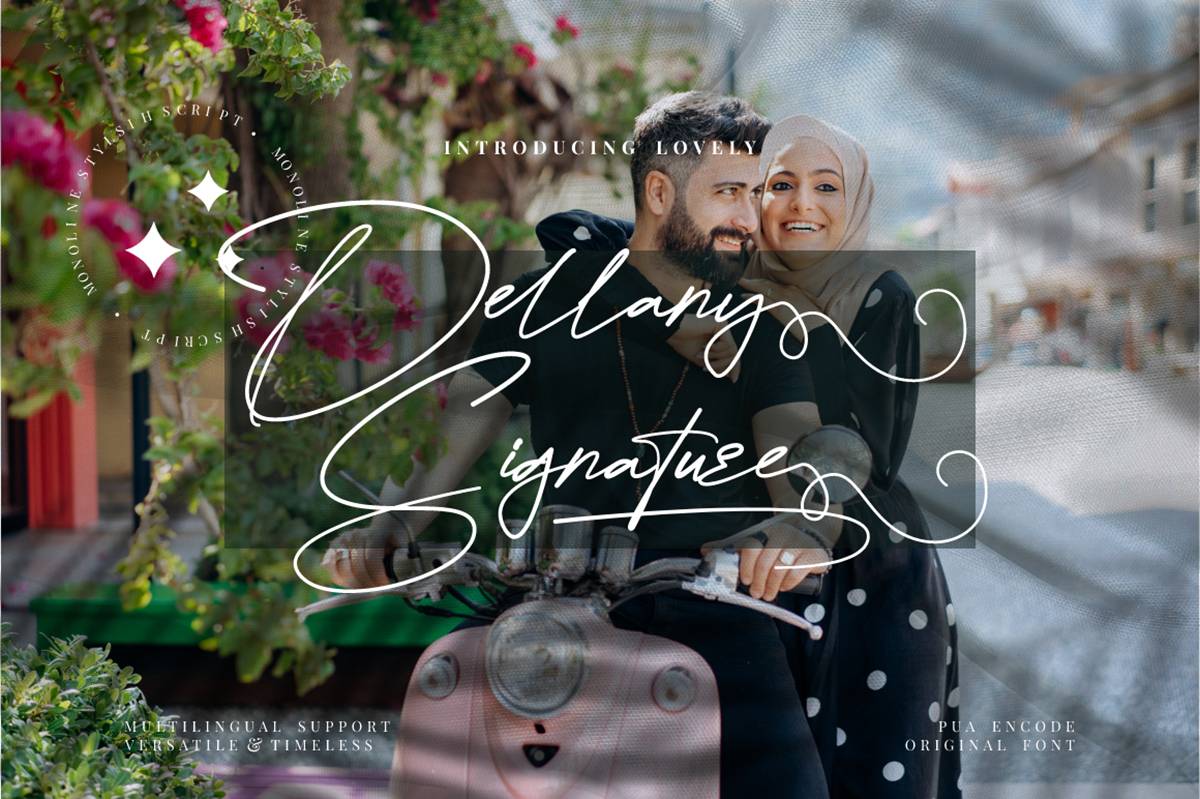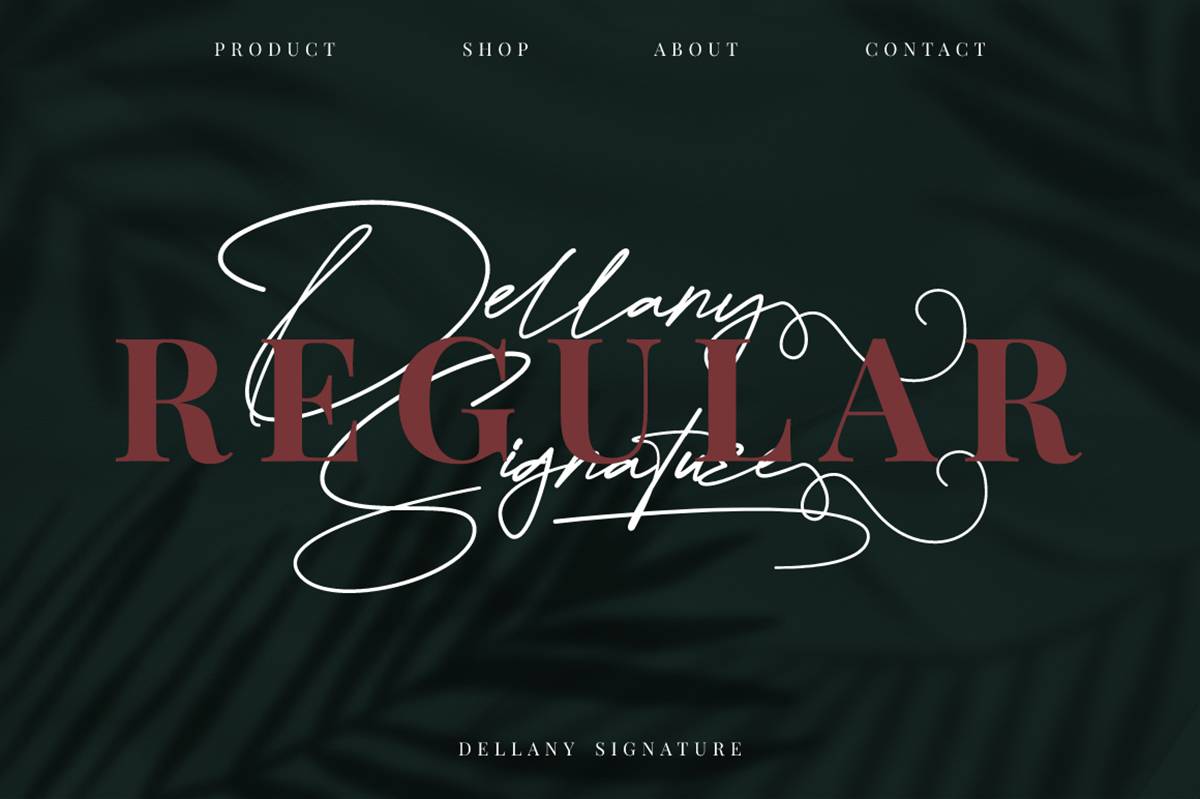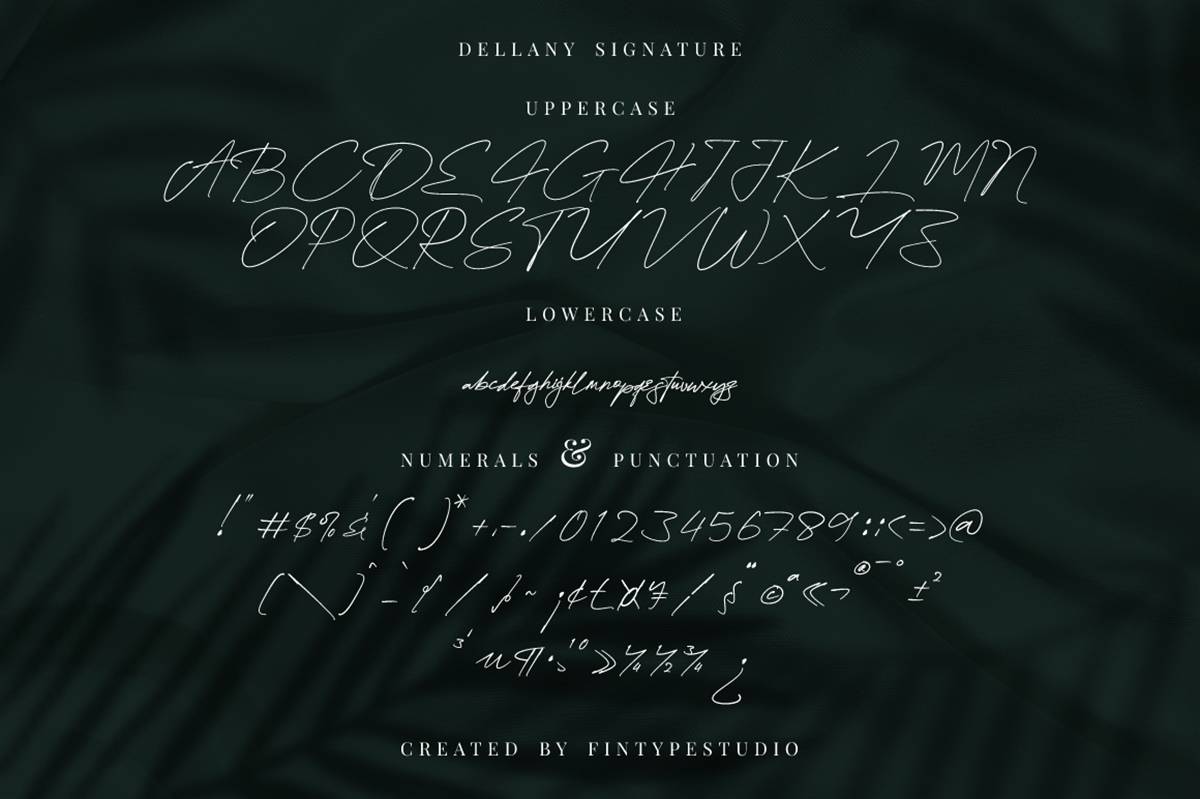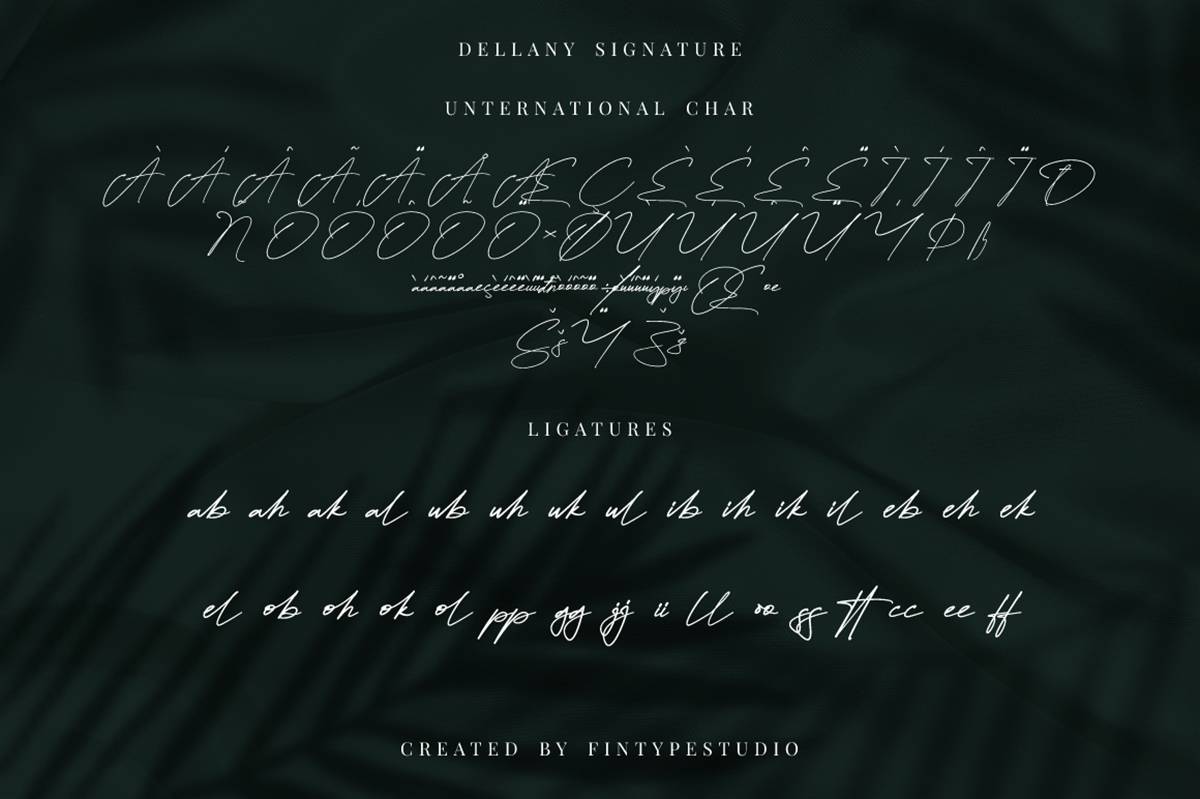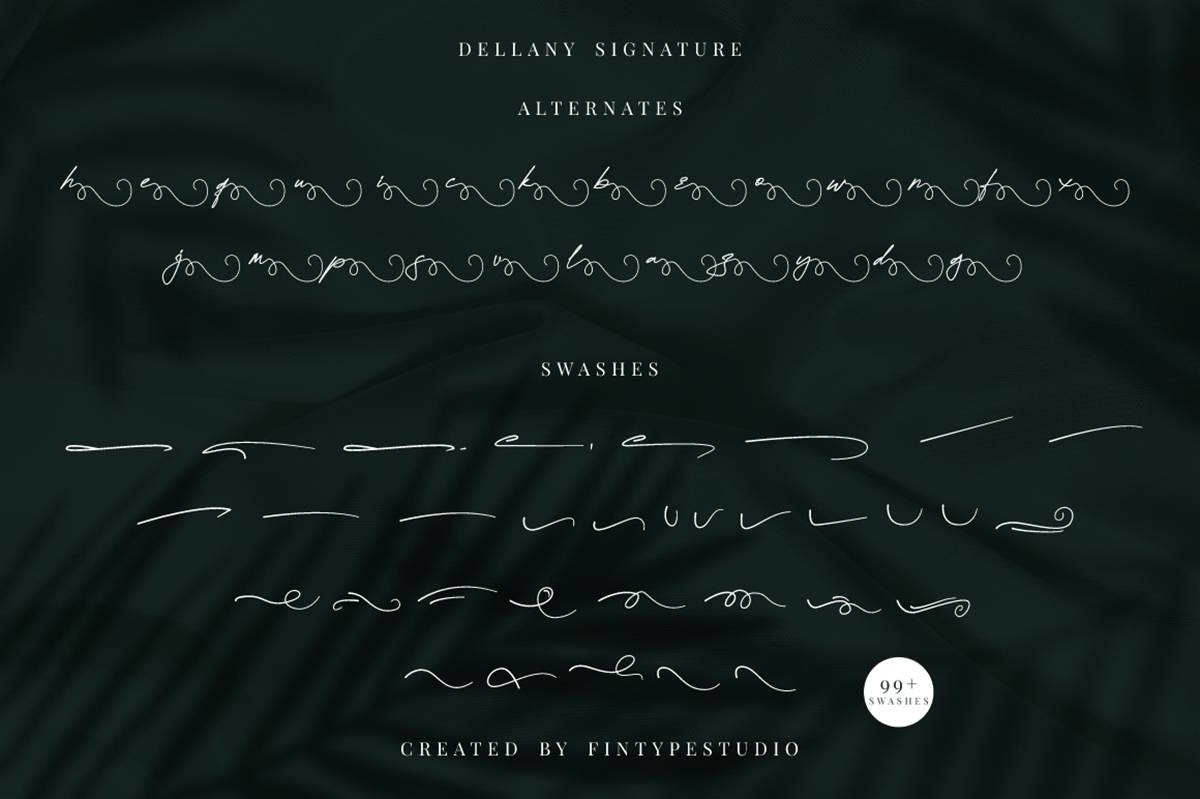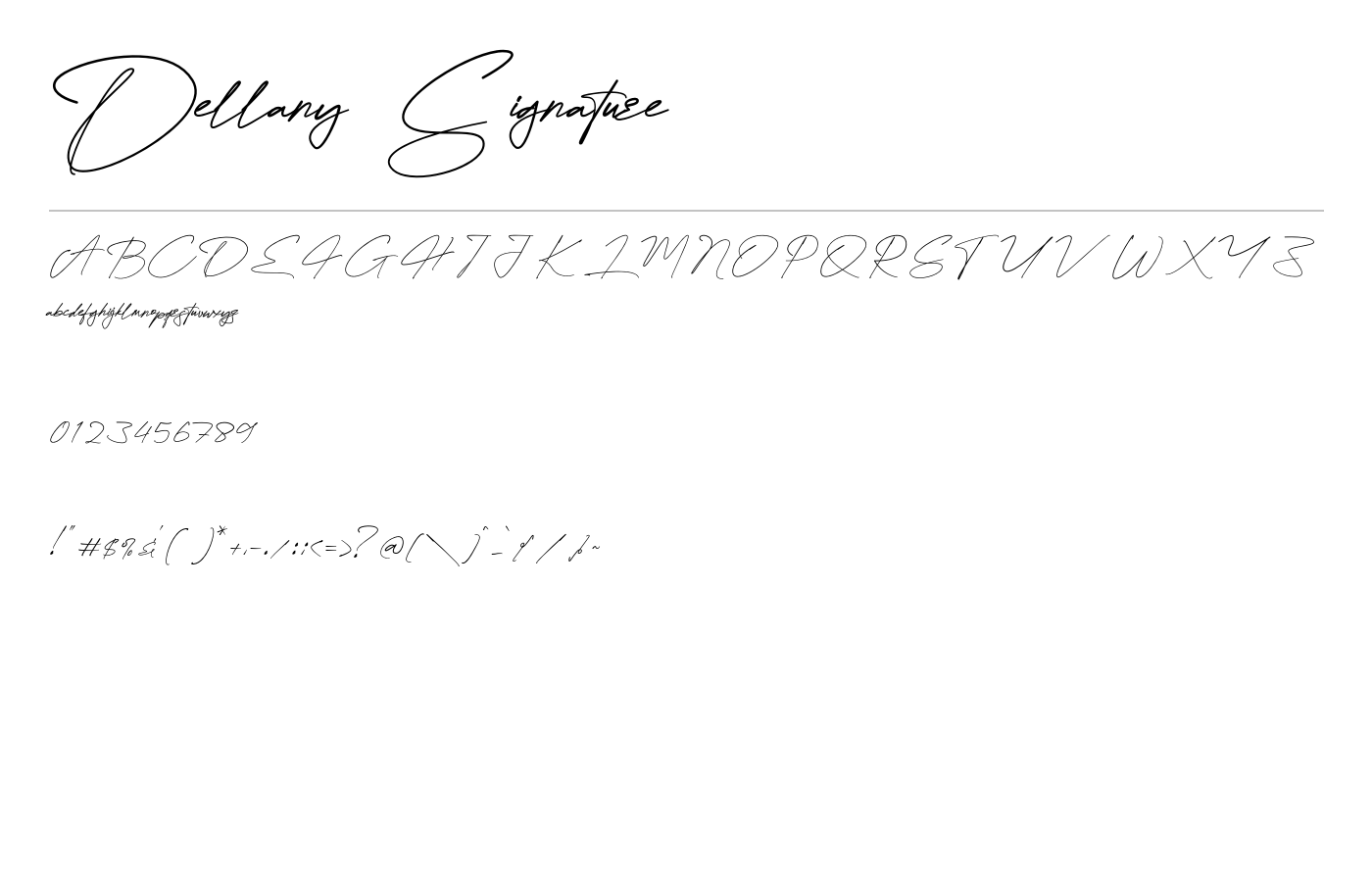
Dellany Signature Font is a delicate, elegant script with a handwritten feel, featuring thin, flowing strokes that mimic natural penmanship. Its light weight and graceful curves make it ideal for stylish branding, wedding invitations, and luxury packaging, where a personal yet sophisticated touch is desired. This font works beautifully in headlines and logos, adding an intimate, artistic flair without overpowering the design.
Dellany Signature Font
About Dellany Signature Font
| Font family | Dellany Signature Font |
| Designer | FinTypeStudio |